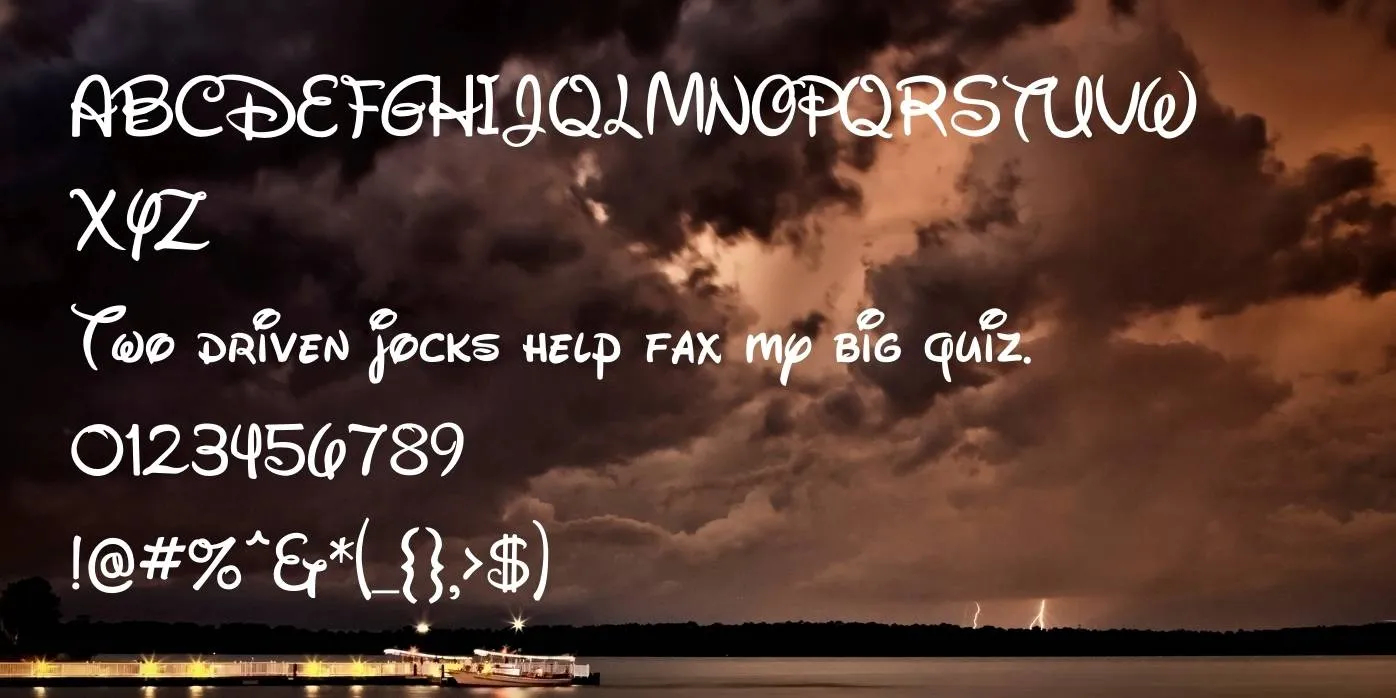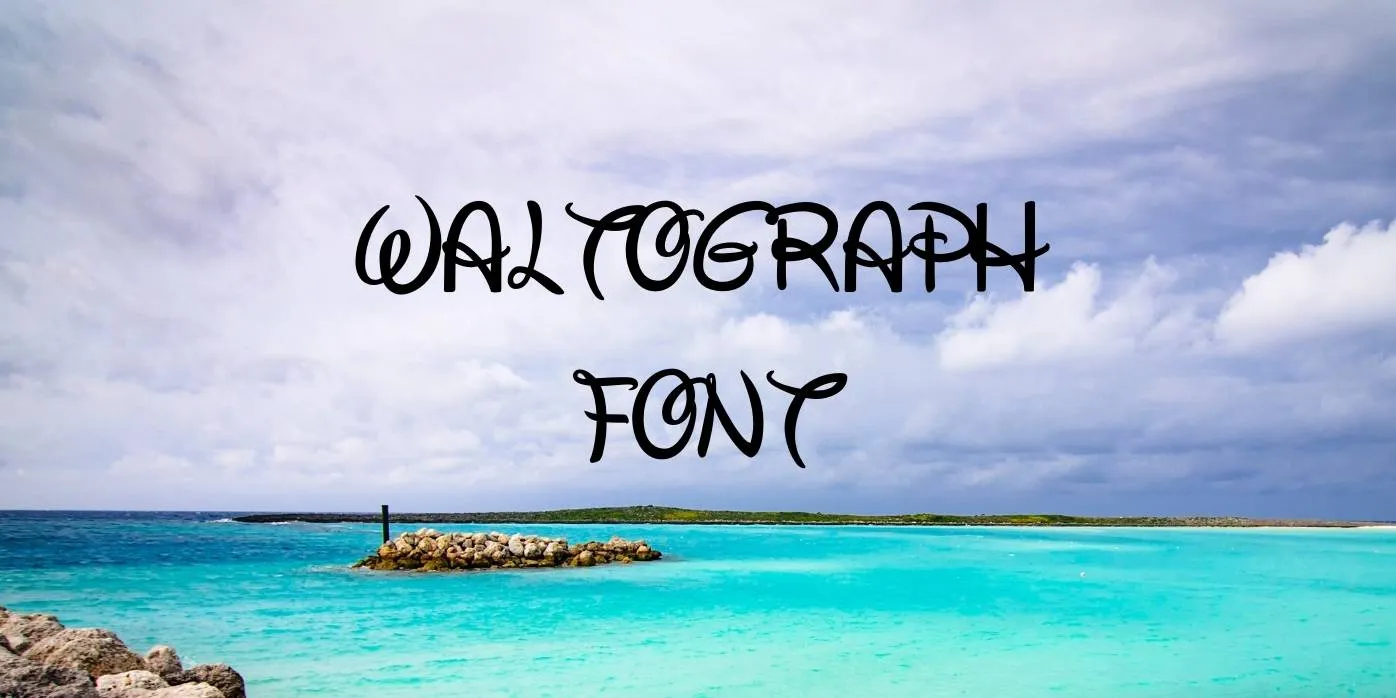
Waltograph Font
Introducing the very popular beautiful and endearing font that is Waltograph font. It is well-known font because it is specially used in a notable logo “Walt Disney”. This typeface is free for personal use only. Walt Disney is inspired by Walter Elias Disney that was an American enterpriser, writer, animator voice actor, film producer, and voice actor.
A colonist of the American animation industry, he provides diverse developments in the production of animations & cartoons. The font family has OpenType and TrueType features include Uppercase and Lowercase, Letters, Numbers and Numerals, and special symbols also. The typeface has very beautiful swashes also. You may also generate this typeface by an online generator tool even without downloading.